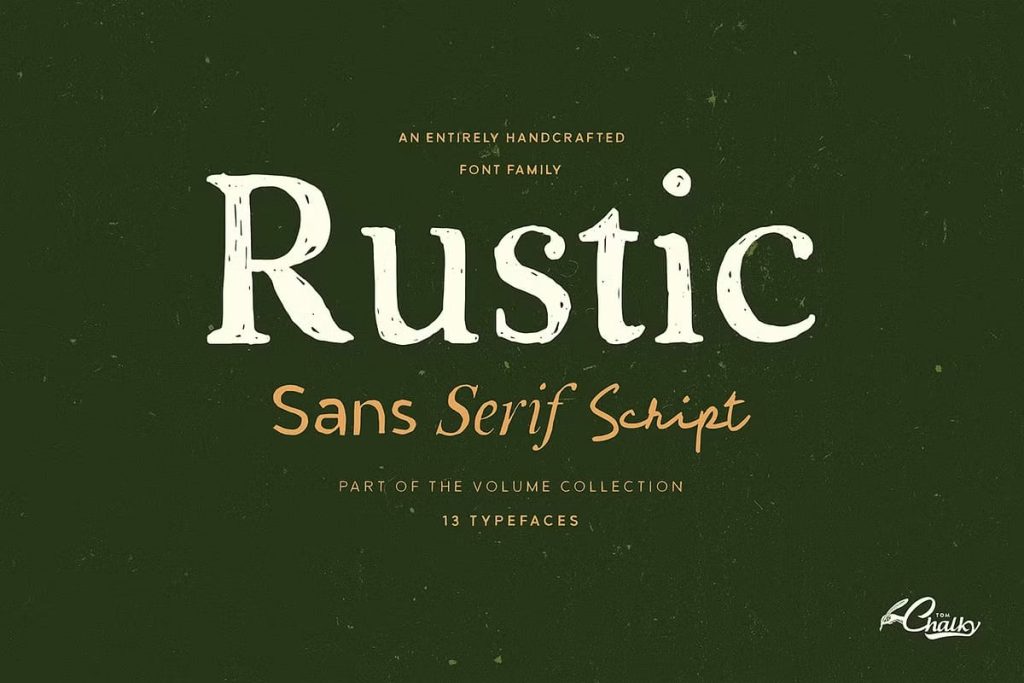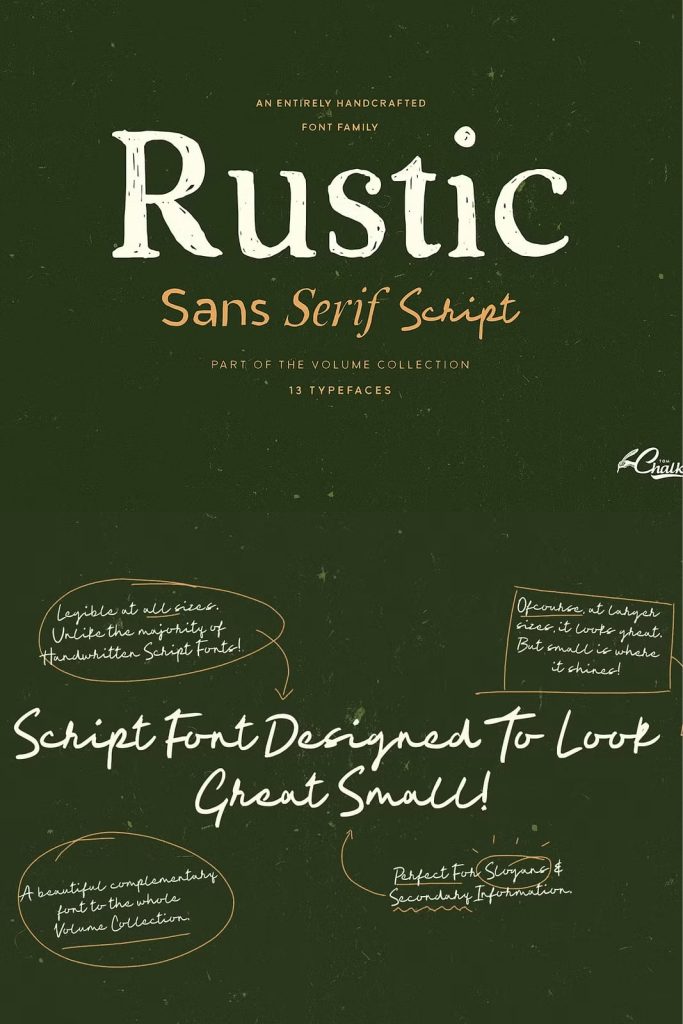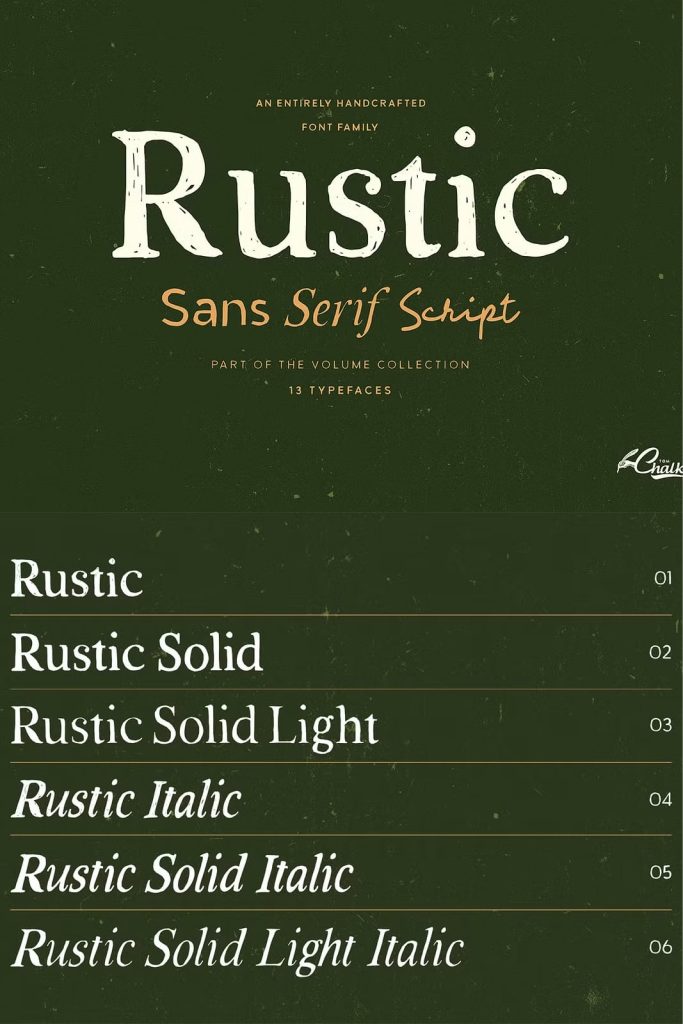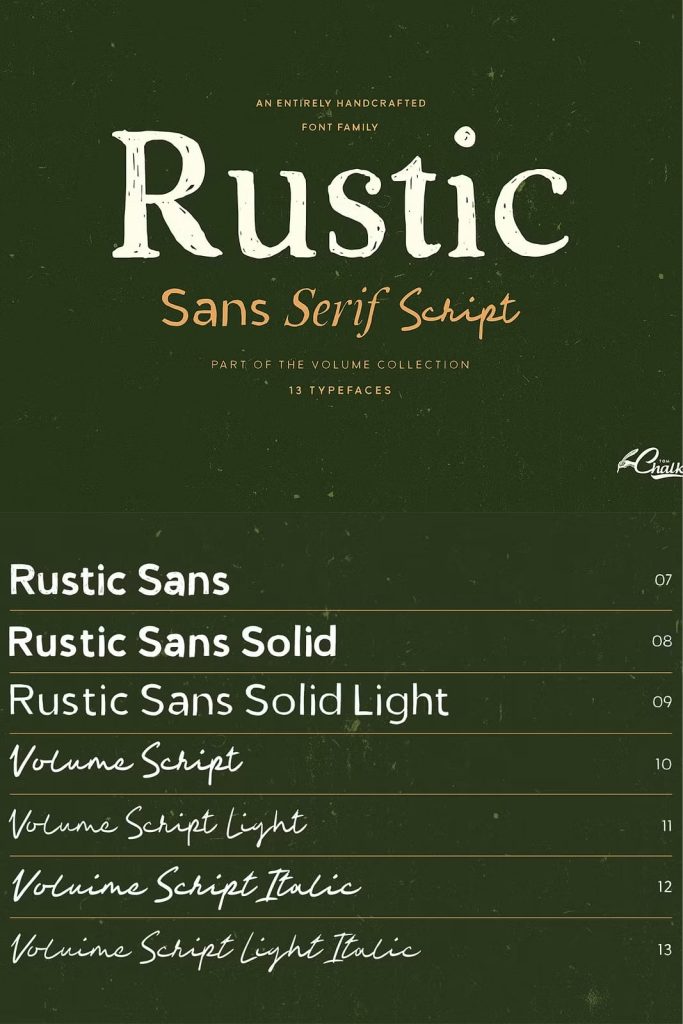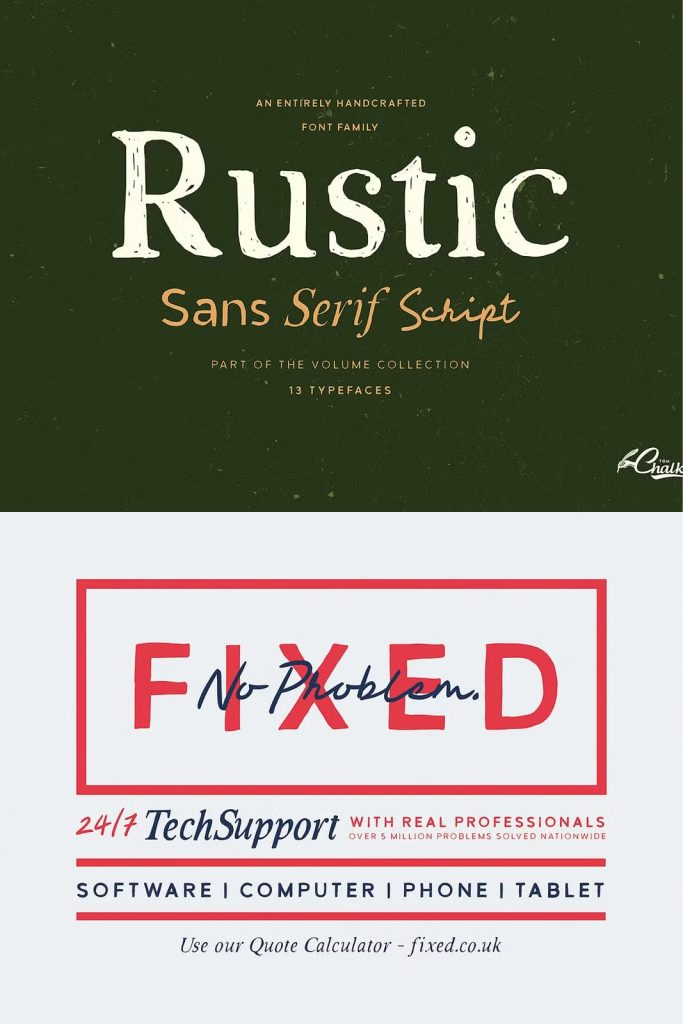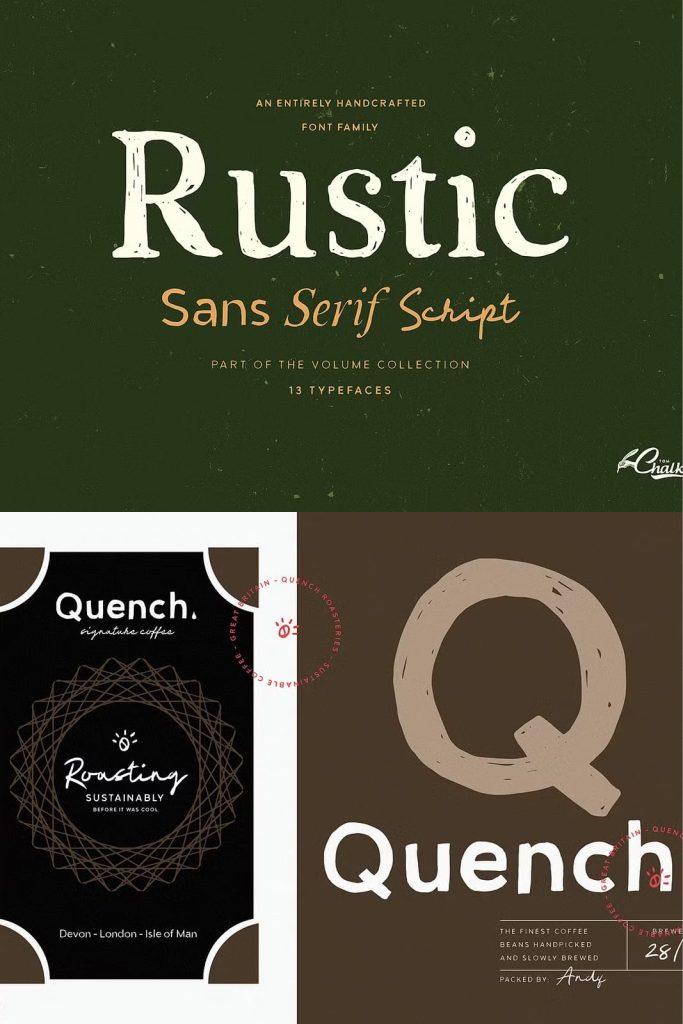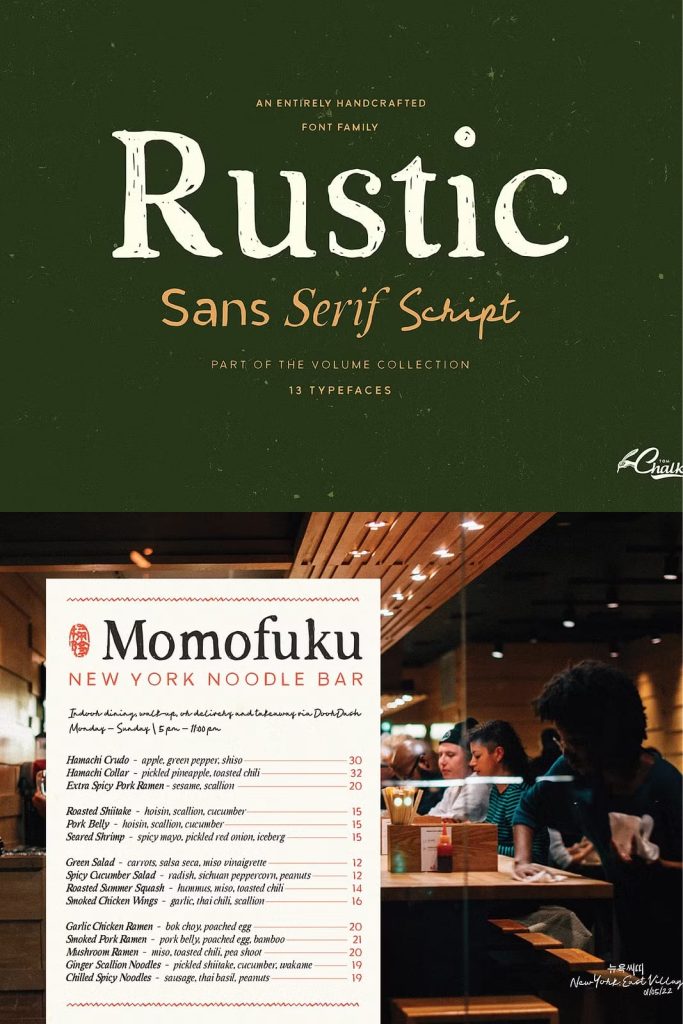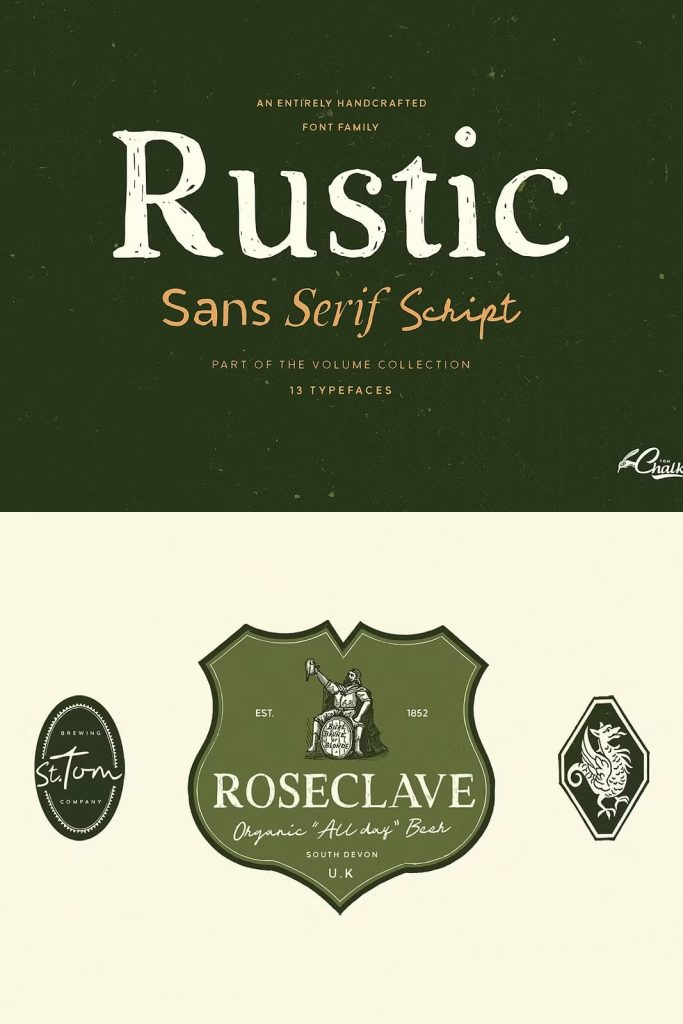
Introducing Rustic 13 Handcrafted fonts designed to complement one another beautifully, this collection is perfect for projects involving organic/handmade/local/human-centric products and services.